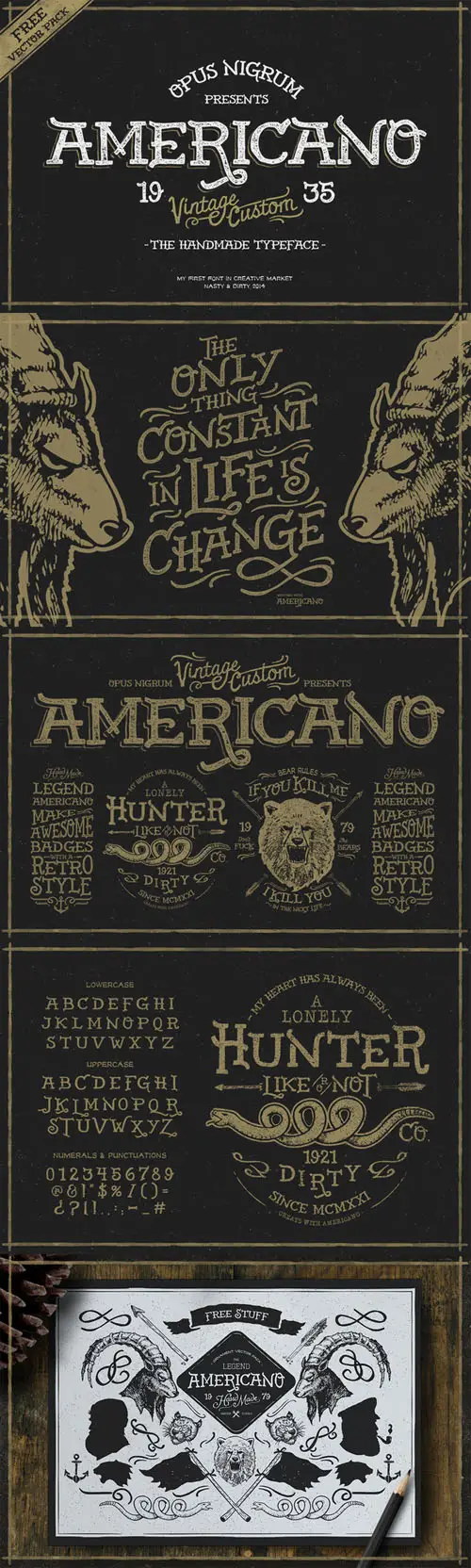
Creativemarket - Americano Font Family
AMERICANO is my first typeface, done entirely by hand, with a simple style, vintage, folk, and dirty. The majority of its in Uppercase with some fun variations. It is the starting point for creating beautiful things. AMERICANO is no a font structurally and perfect. AMERICANO is expressive, and beautifully imperfect. AMERICANO is great for creating quotes or make logos.